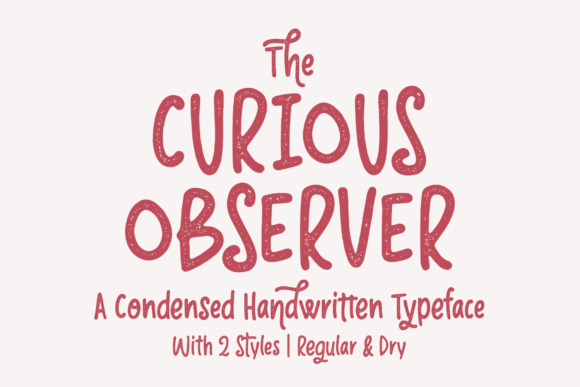
Introducing the Curious Observer Font: An Extraordinary Display Typeface for Captivating Designs
Immerse yourself in the realm of limitless creativity with The Curious Observer Font. This captivating display typeface, meticulously crafted by Ayca Atalay, is an absolute gem for designers seeking to elevate their projects with an inimitable flair.
As its name suggests, The Curious Observer Font possesses an air of allure and intrigue, tempting you to delve into its depths and unleash your boundless imagination. This font is not merely a collection of letters; it's a portal to a world of captivating designs that will mesmerize your audience.
With its condensed form, The Curious Observer Font exudes elegance and sophistication. Available in two distinct styles, Regular and Dry, this typeface offers a range of expressive possibilities. However, its true allure lies in its intricate details.
Entirely handwritten, The Curious Observer Font boasts a captivating blend of authenticity and artistry. Its lowercase alternates and ligatures add a touch of playful charm, imbuing your designs with a unique character that sets them apart from the ordinary.